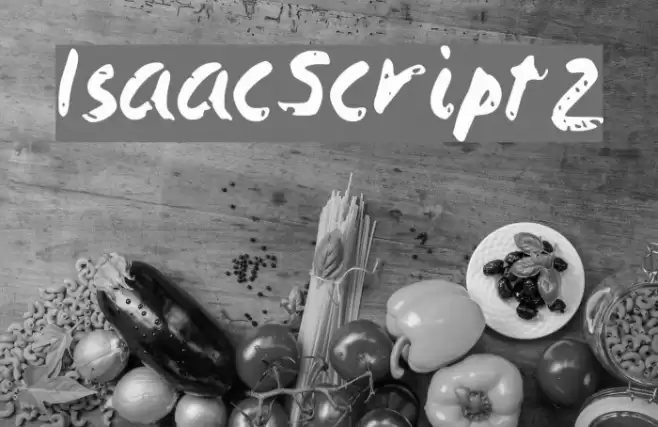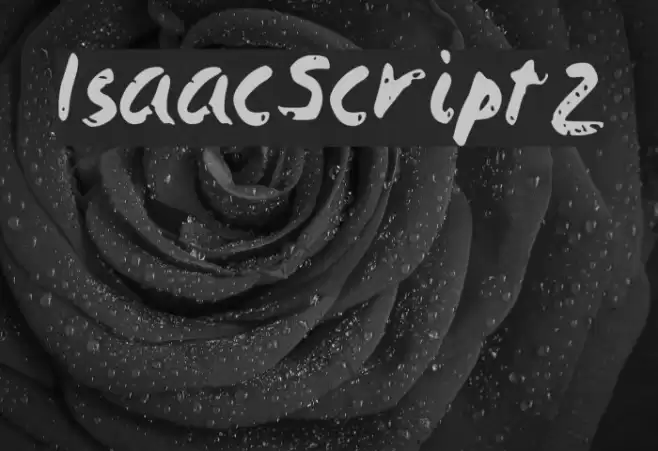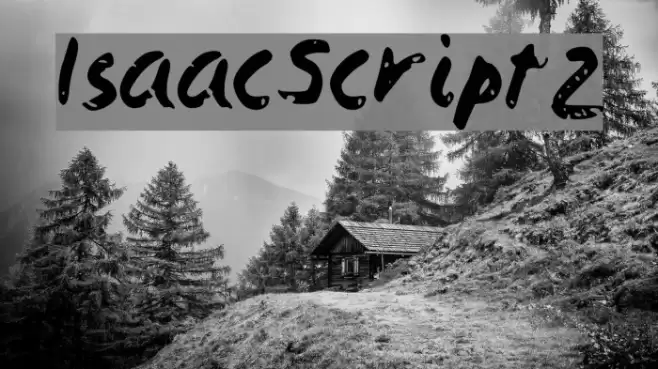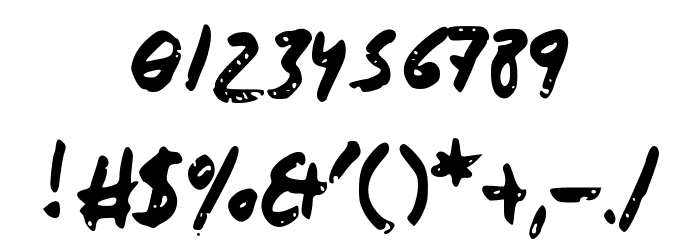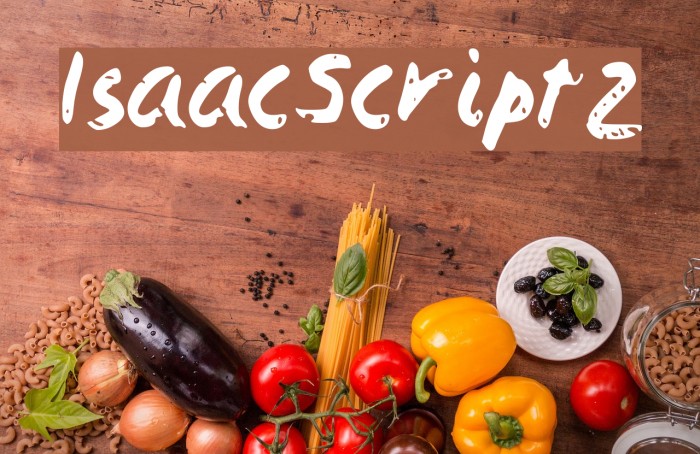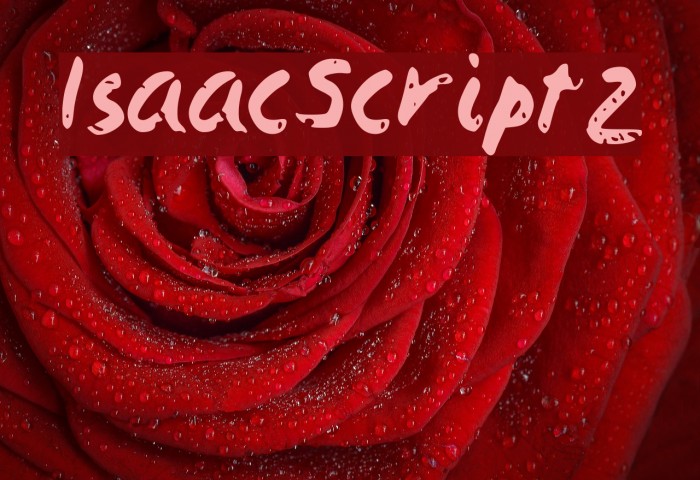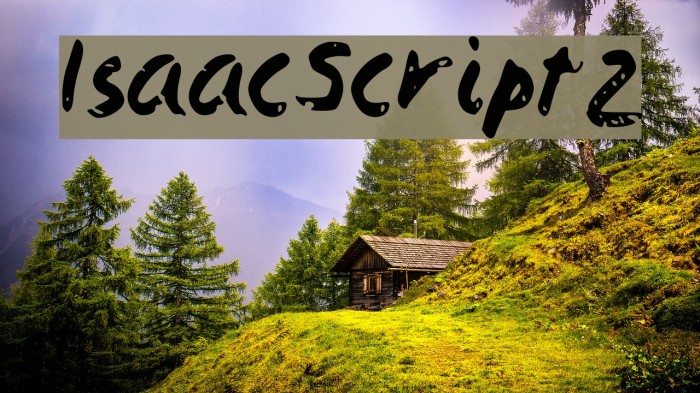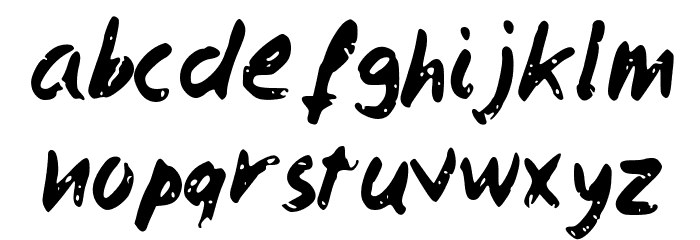
IsaacScript2 Font
IsaacScript2 Description
This font exudes a bold, expressive style with a hand-painted appearance. The characters are uneven and feature a textured, brush-like finish, giving them a dynamic and energetic feel. The uppercase and lowercase letters maintain a consistent style, with a playful and artistic flair. The numbers and special characters follow the same design, adding to the cohesive look. The font's irregularities and rough edges contribute to its unique, handcrafted aesthetic, making it stand out in any design project.
A bold, textured script font with a hand-painted, artistic style from Uncategorized fonts.
- Proposed Projects: Ideal for creative projects such as posters, album covers, branding for artistic ventures, and any design needing a bold, expressive touch.